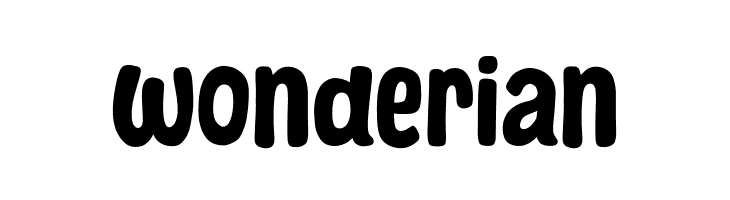
A semi-rounded sans-serif font with a clean, geometric design.
A bold, italicized font with a futuristic and dynamic style.
A bold, three-dimensional serif font with intricate detailing and strong presence.
( mlkwsn - Malik Wisnu )
A tall, narrow, and geometric font with a modern aesthetic.
( estudio.co.nz )
A playful, handwritten font with irregular strokes and a whimsical style.
A modern, elegant font with smooth, flowing characters.